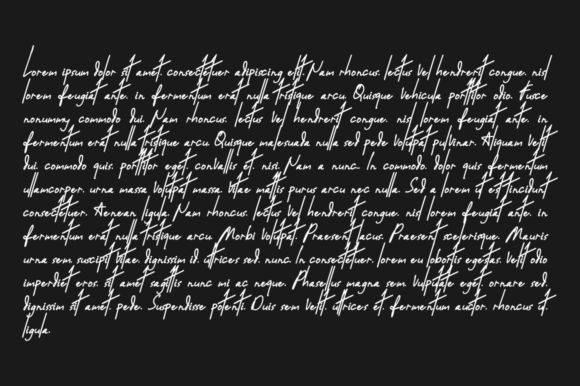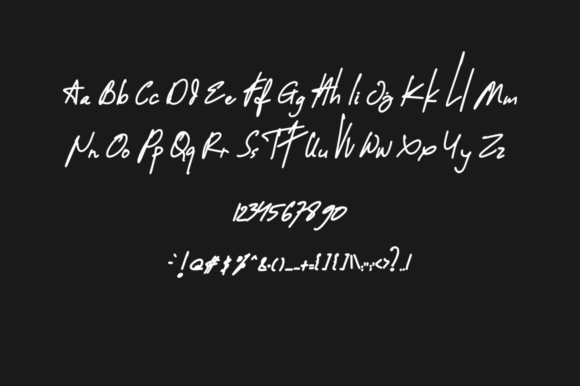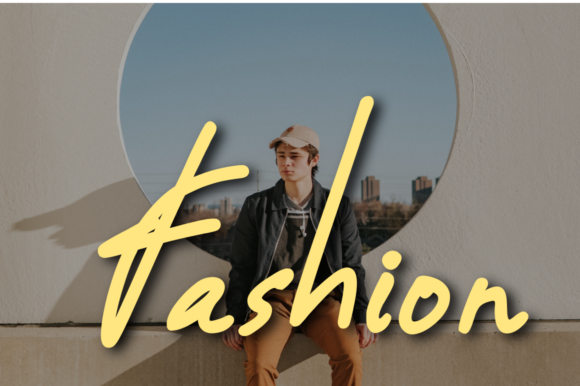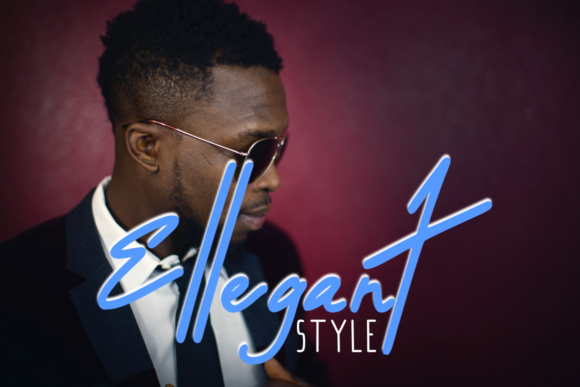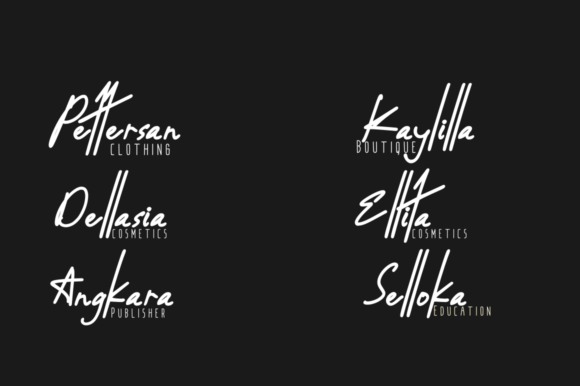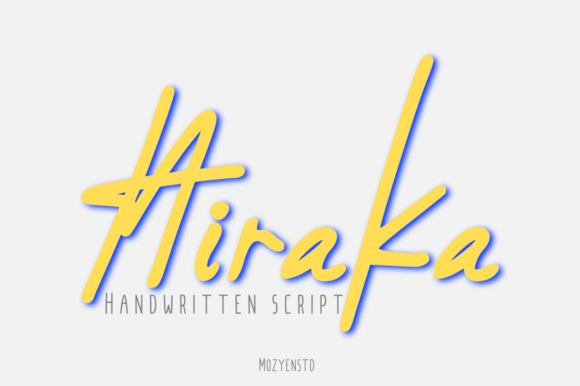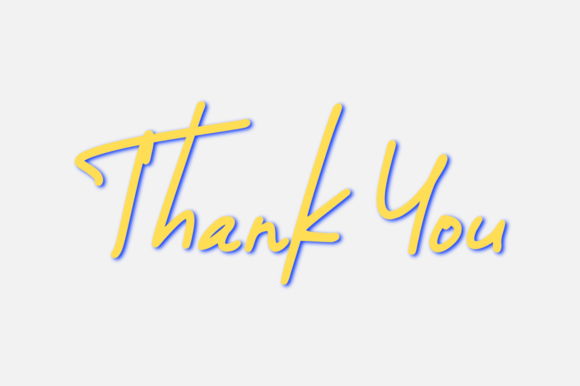
HomeScript FontsHiraka Font Script Fonts Hiraka Font FacebookXPinterestWhatsApp Hiraka Font Poster 2 Hiraka Font Poster 3 Hiraka Font Poster 4 Hiraka Font Poster 5 Hiraka Font Poster 6 Hiraka Font Poster 7 Hiraka Font Poster 8 About Hiraka Font Hiraka is a strong and authentic script with a powerful vibe. DOWNLOAD NOW People also explored Mockingbird Font Barrage Font Parsley Font XMom and Baby Font Font Adventure Await Font Blodeyn Font Moment Font Annettasya Font Salisbury Font 380 0 TagsHiraka Font Previous articleRegistand FontNext articleAngellida Font LEAVE A REPLY Cancel reply Comment: Please enter your comment! Name:* Please enter your name here Email:* You have entered an incorrect email address! Please enter your email address here Website: Save my name, email, and website in this browser for the next time I comment. Personal Use Free Comic Caps Personal Use Free Read more about this font Spring Personal Use Free Read more about this font Nugo Sans Personal Use Free Read more about this font Satori Personal Use Free Read more about this font BLOG The 10 Best Handwriting Fonts to Add Personality to Your Designs 10 of the Best Handwriting Fonts for Adding Personality to Your Designs There will undoubtedly be no other better choice than handwriting fonts to give... Modern Sans-Serif Fonts That Brands Love in 2025 Where to Buy American Fonts Online in 2024 Top 10 Handwritten Fonts That Elevate Your Designs